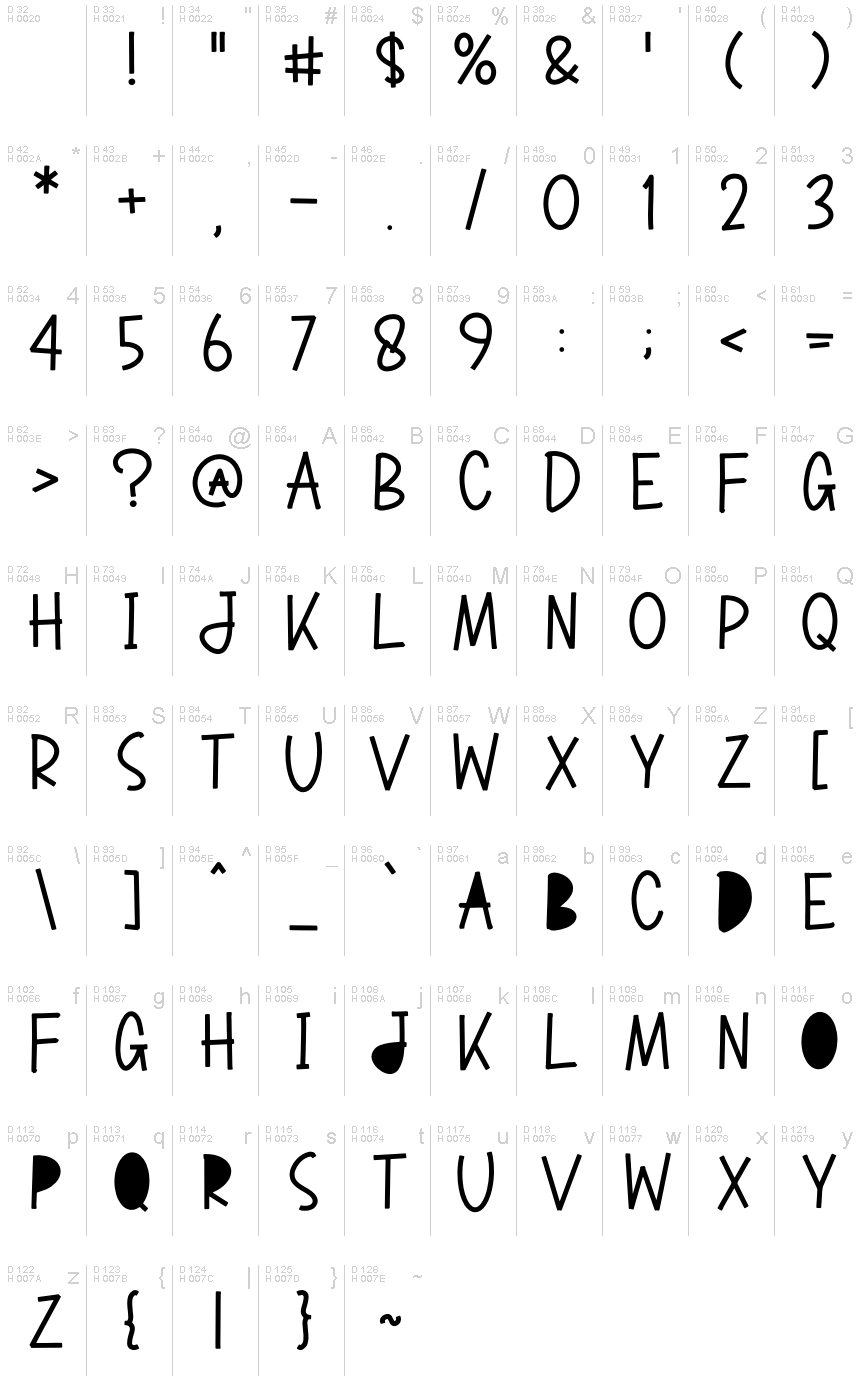
SWEET MARKER
Sweet Marker is a delightful handwritten font crafted by Perspectype Studio and brought to you by Letterena.com. Its semi-light weight and condensed width create an aesthetic that is both playful and efficient, evoking the charm of personalized notes and creative doodles. The casual, yet distinct penmanship style embodies a sense of warmth and approachability, making it a perfect choice for designs that require a touch of human touch.
With its organic curves and subtle variations in stroke thickness, Sweet Marker offers an authentic handwritten feel that stands out in digital spaces. This font's versatility allows it to shine across various creative endeavors, from branding projects to social media graphics, where its unique character can add personality to any visual communication. Embrace the inviting appeal of Sweet Marker for your next design project and let its distinct style convey your message with flair.